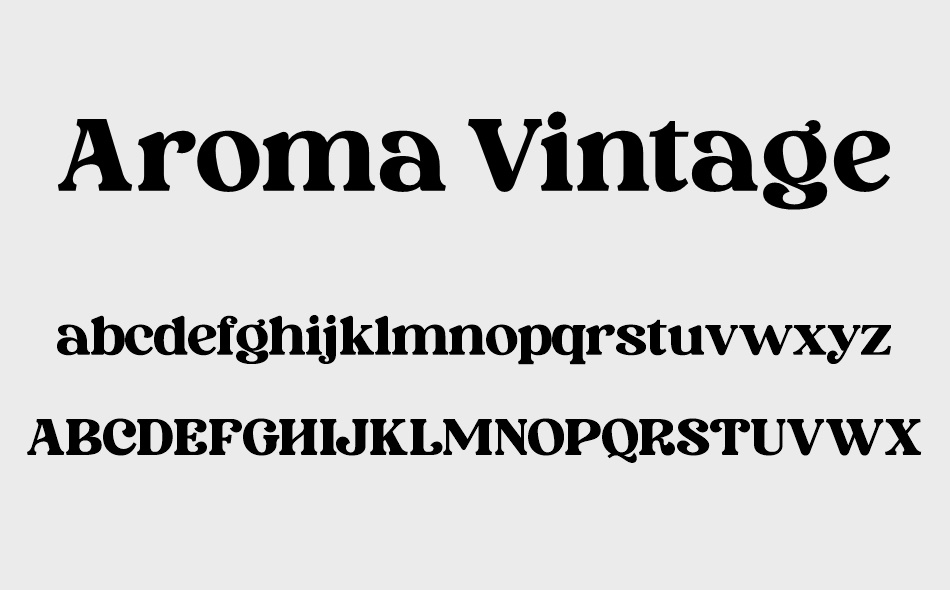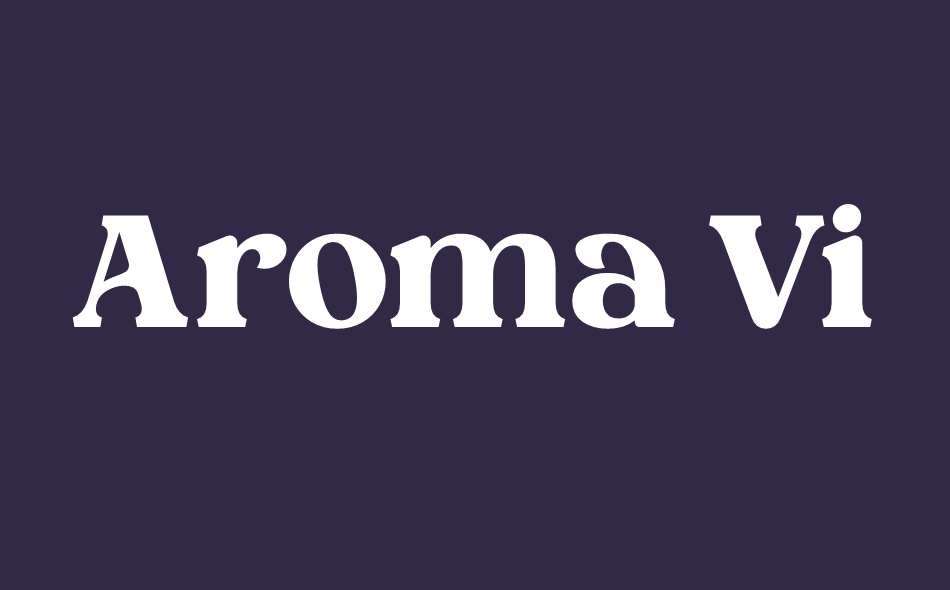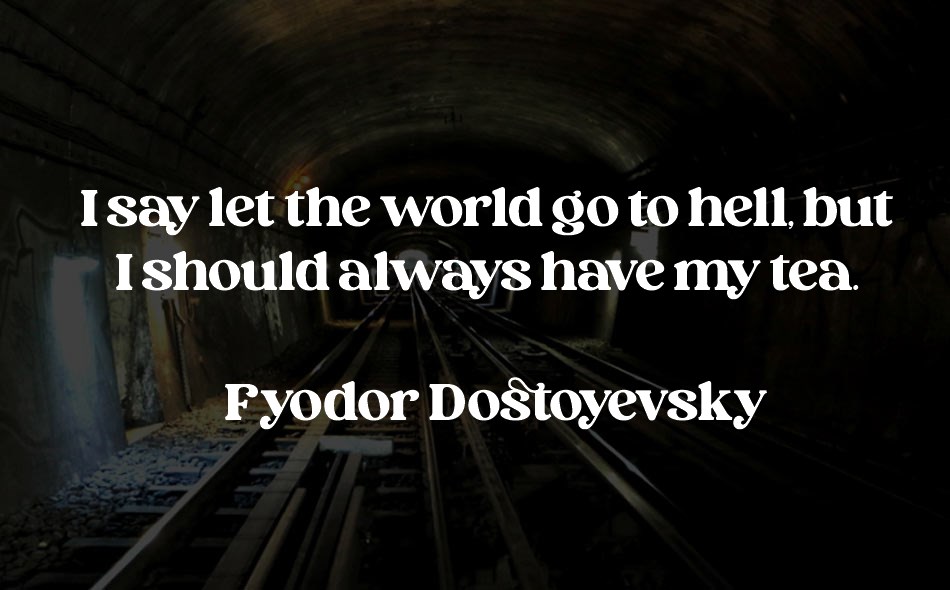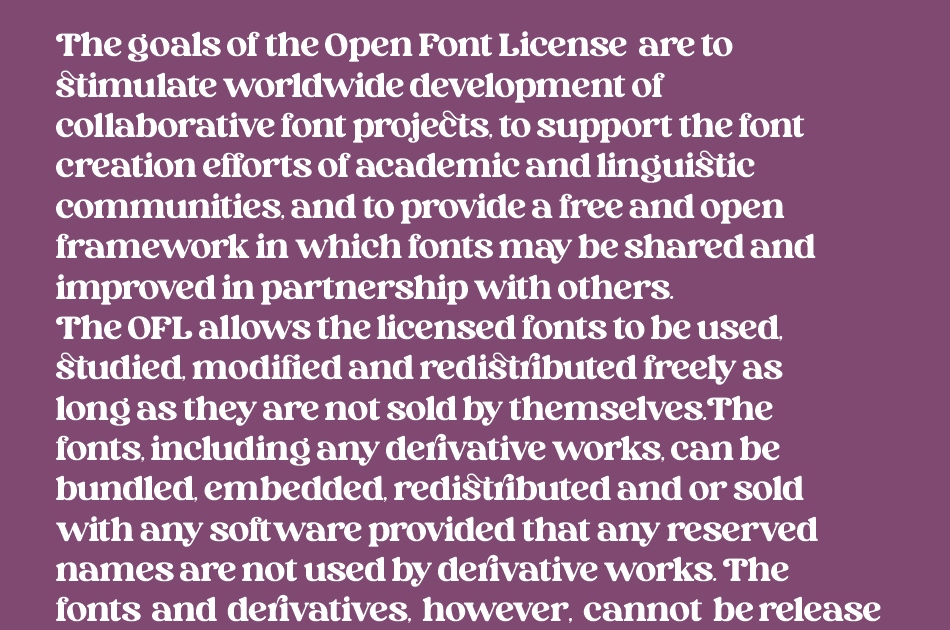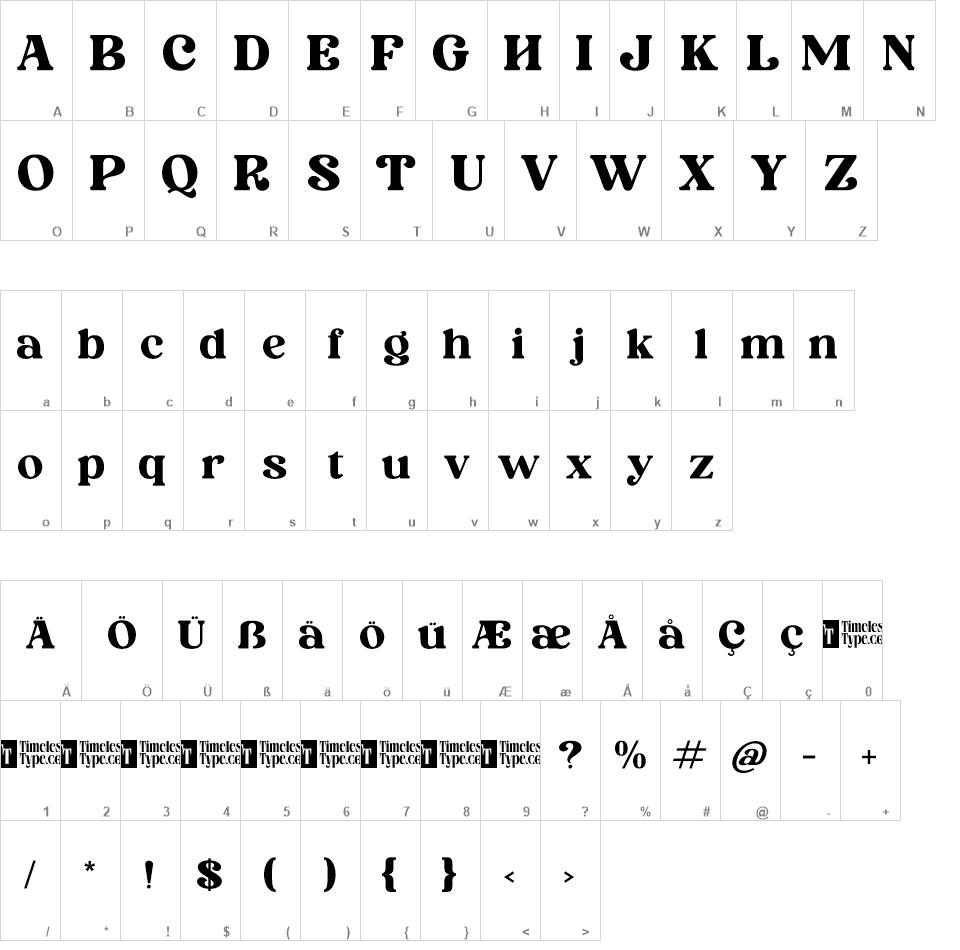
Aroma Vintage font
Aroma Vintage - Retro Display Serif
Unleash the irresistible charm of genuine nostalgia with Aroma Vintage - Retro Display Serif. This exceptional display typeface masterfully captures the spirit of mid-century aesthetics, blending bold, confident curves with playfully sophisticated serif details. Designed for maximum visual impact, it injects immediate personality and a sense of inviting warmth into any project, making it an instant focal point for eye-catching headers and titles that demand attention.
Elevate your typography with limitless creative control using the robust OpenType features embedded within Aroma Vintage - Retro Display Serif. Featuring 15 expressive ligatures and over 41 stylistic alternates, this font provides an extensive toolkit for customization. Designers can effortlessly craft truly unique logo lockups and tailor every word for maximum stylistic effect, ensuring no two applications look exactly alike and maintaining high aesthetic appeal and design versatility.
Expand your brand's reach without compromising style through unparalleled technical support. With its extensive multilingual support, Aroma Vintage - Retro Display Serif adapts seamlessly across global markets, making it incredibly versatile for international projects. This ensures that your nostalgic vision translates flawlessly across different languages and territories, guaranteeing global design consistency across all brand touchpoints and commercial materials.